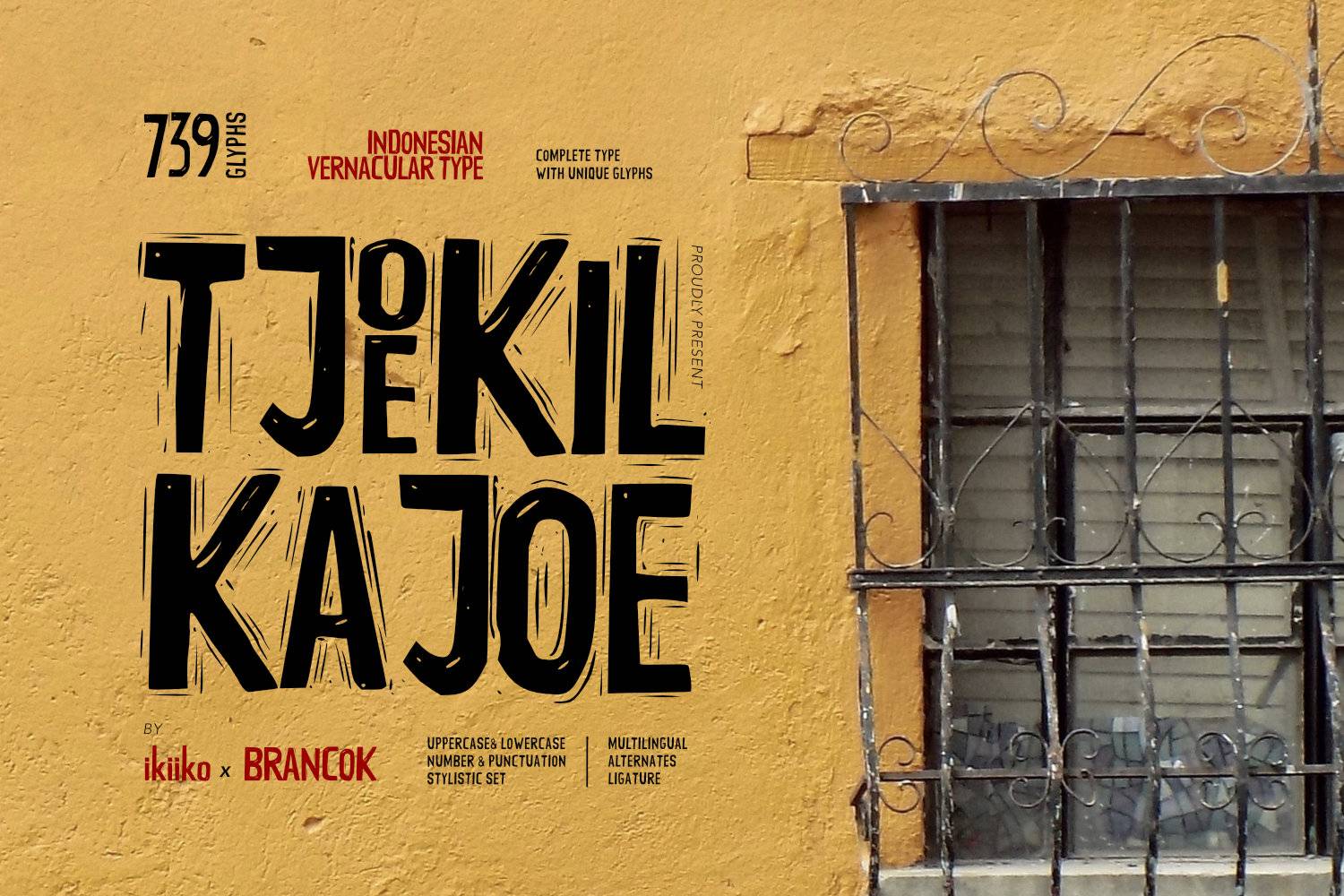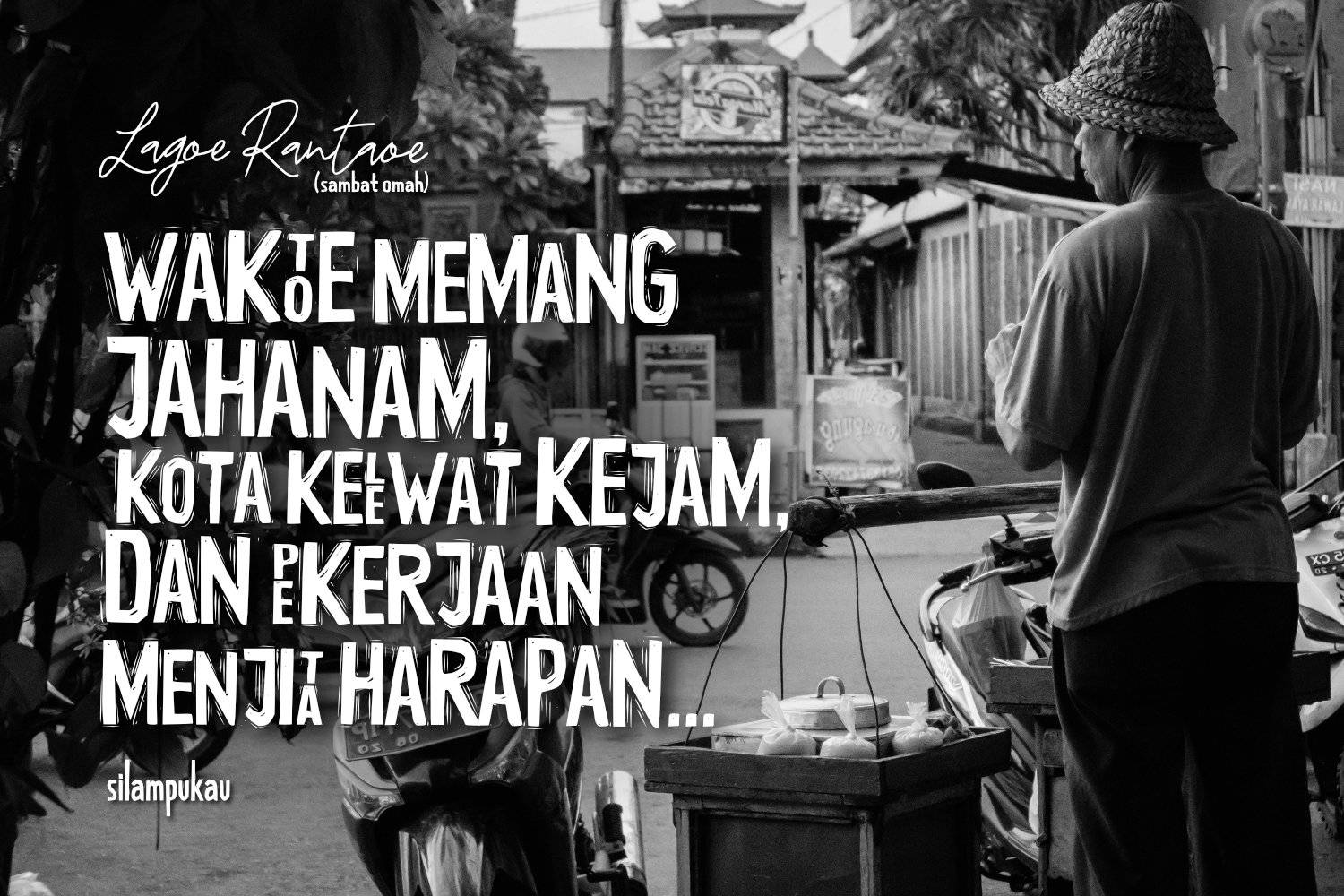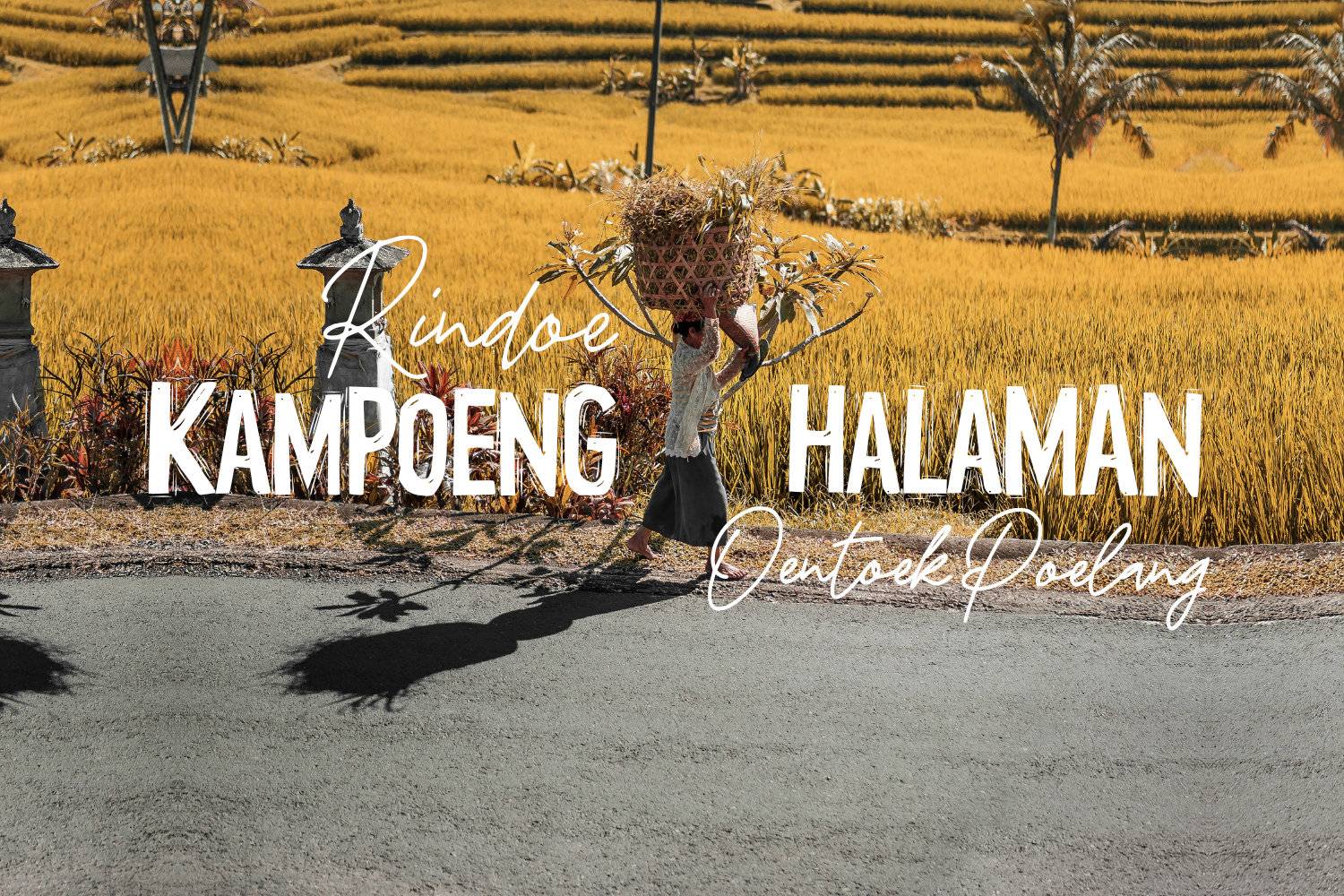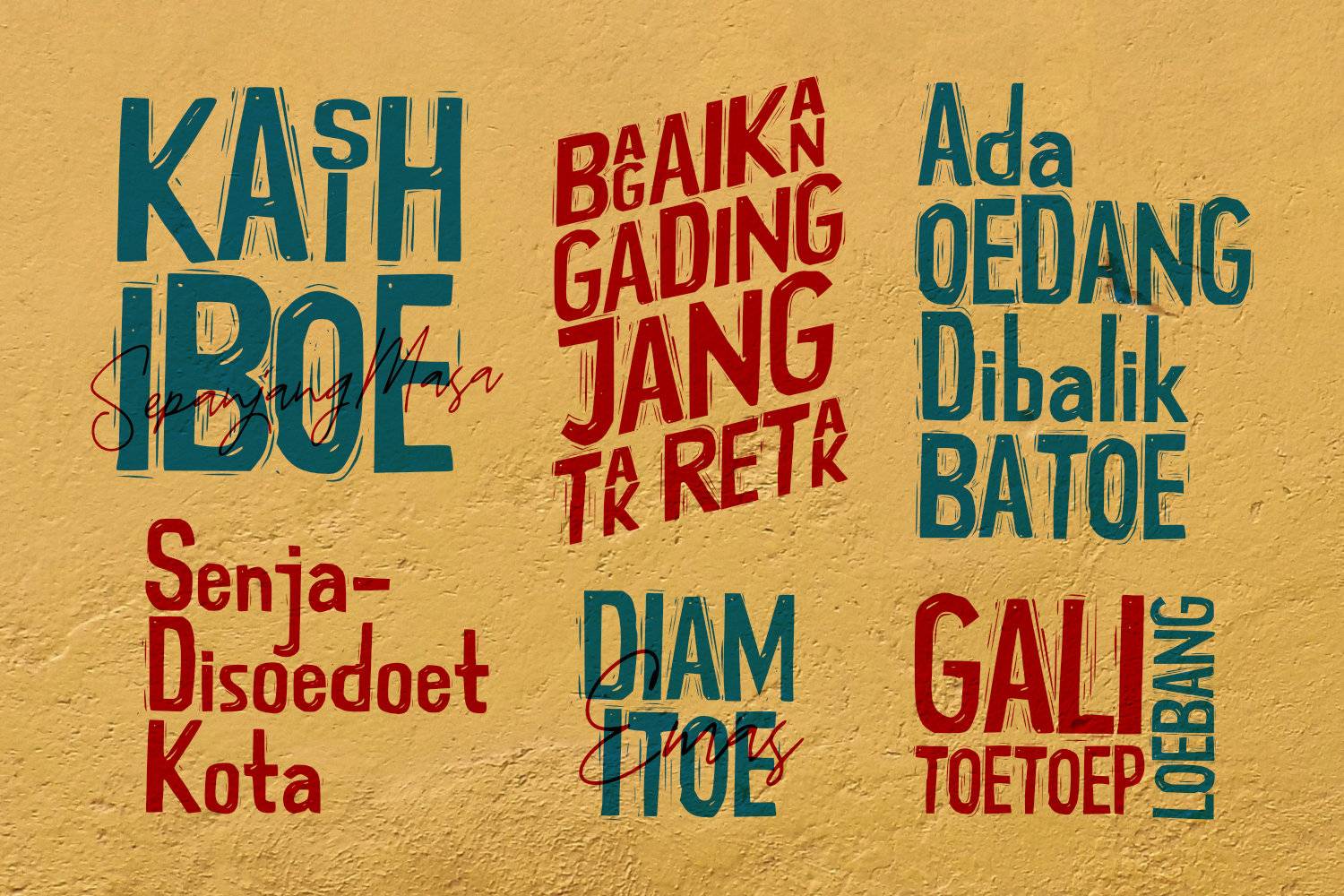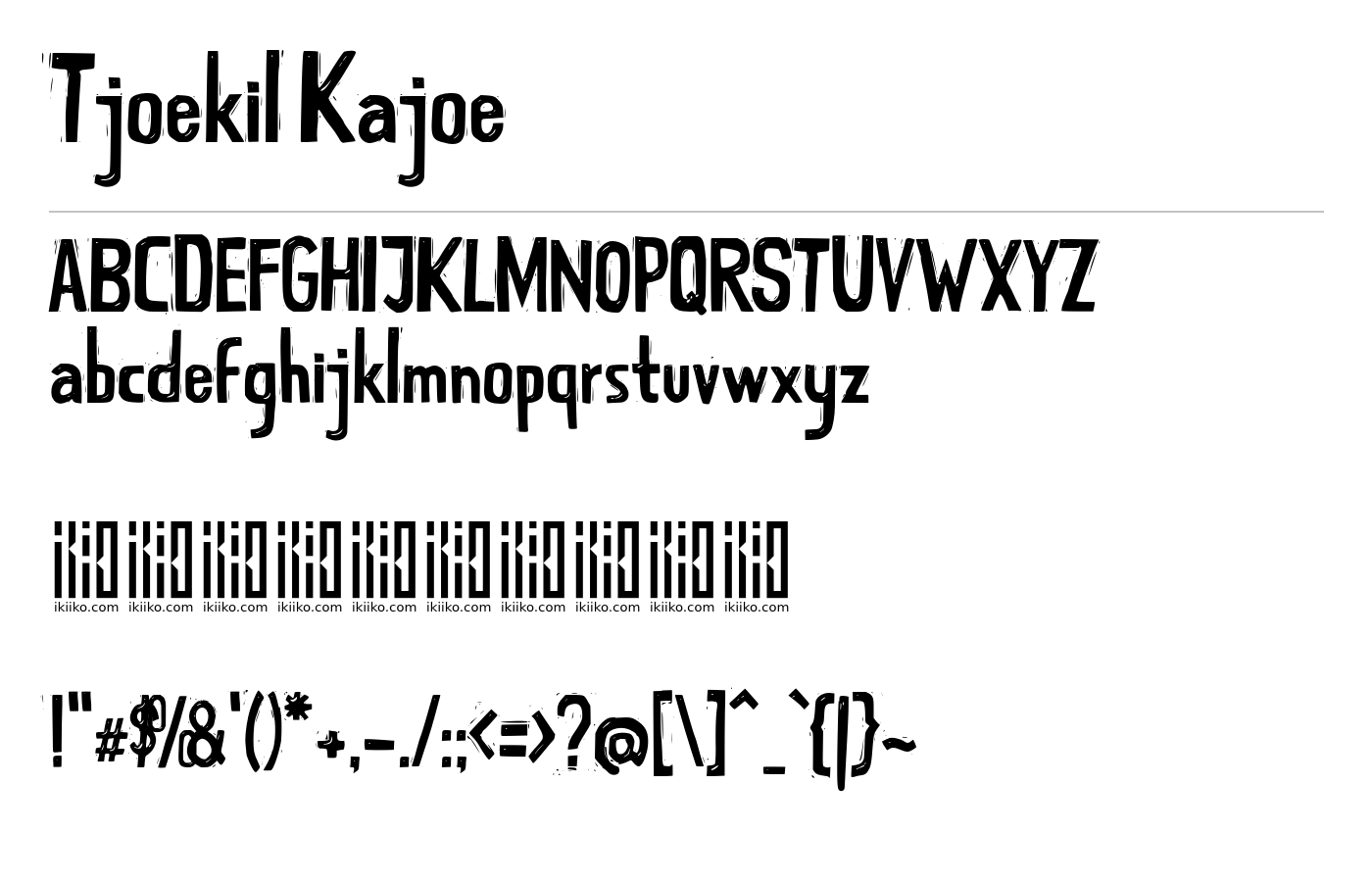
Tjoekil Kajoe is a bold, condensed sans serif font with a quirky, hand-drawn feel that adds character through irregular edges and subtle texture. Its tall, narrow letterforms and uneven stroke widths lend an informal and playful vibe, making it ideal for creative branding, posters, and headlines where personality and uniqueness are desired. This font works best in settings that benefit from a handcrafted, artistic look rather than formal, traditional text.
Tjoekil Kajoe Font
About Tjoekil Kajoe Font
| Font family | Tjoekil Kajoe Font |
| Designer | Andhika Pradana, Wahyu Eka Prasetya |